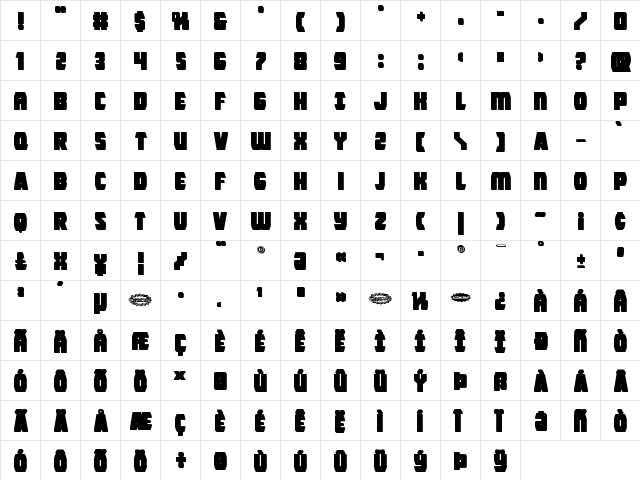
Intergalactic Block Regular
Design Context for Intergalactic Block Typeface
Intergalactic Block is a composed and adaptable typeface that performs quietly and consistently across a wide range of design contexts.